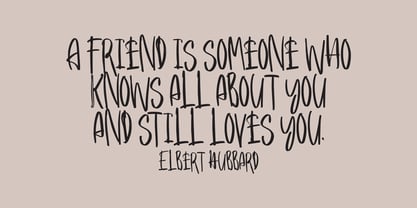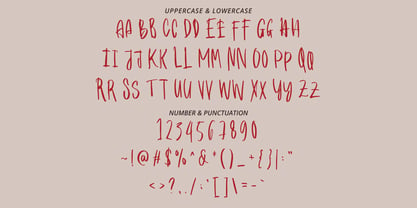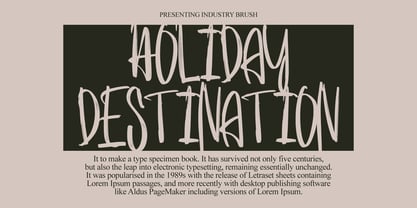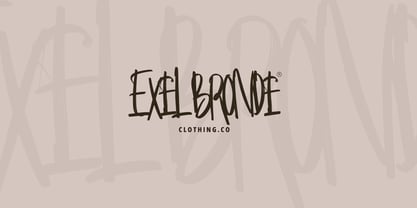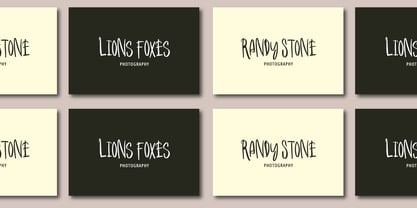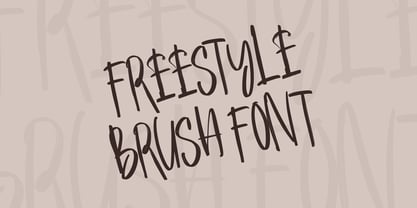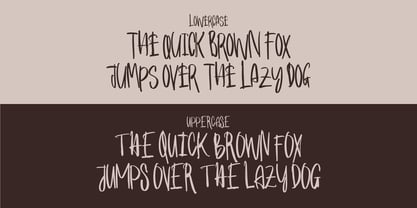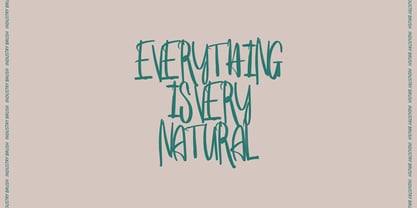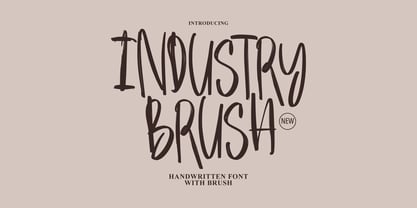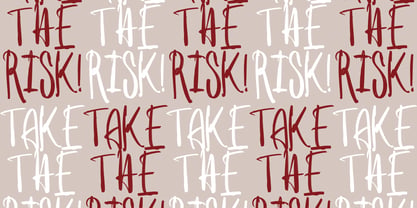
Industry Brush
by Tebaltipis Studio
The Industry Brush Font Family was designed by Dzulka Elfira and published by Tebaltipis Studio. Industry Brush contains 1 styles. More about this family
Industry Brush is a typeface with personality. You can use it as a logo, badge, insignia, packaging, headline, poster, etc The alternative characters in this font were divided into several OpenType features such as Stylistic Alternates, Stylistic Sets, and Ligature. The OpenType features can be accessed by using OpenType program such as Adobe Illustrator, Adobe Photoshop, and Adobe InDesign.